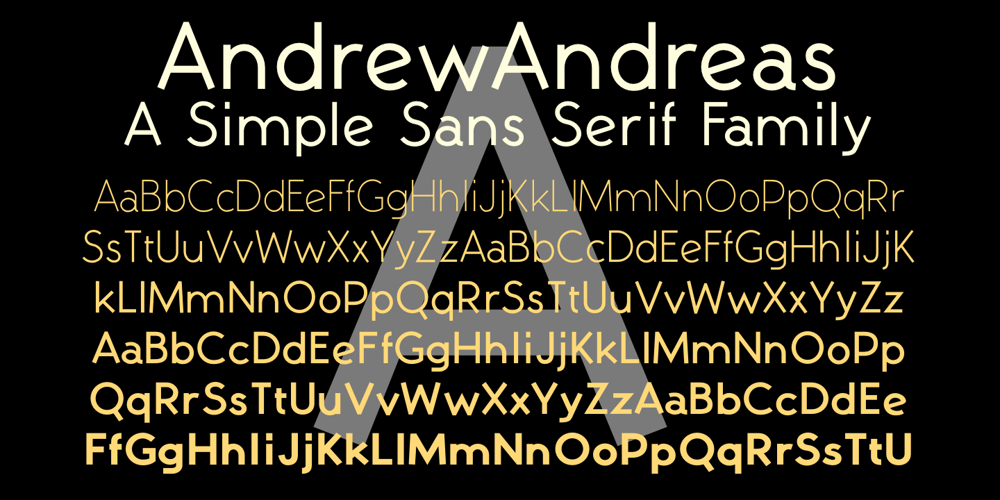
AndrewAndreas
AndrewAndreas font
AndrewAndreas Font Family was designed by Robert Schenk and published by Ingrimayne Type. AndrewAndreas contains 12 styles and family package options. AndrewAndreas is a simple, clean, sans-serif font family that is highly legible and useful for both text and display purposes. The original three weights were designed in 1994 and three additional weights plus oblique styles were added in 2020. Also added were several OpenType features, including subscripts, superscripts, and fractions.The six oblique styles slant the upright styles but do not change the shape of the letters. However, three OpenType stylistic alternatives provide alternative letter forms for a, f, i, j, and l for five of the obliques and they can be used for a more traditional italics appearance.